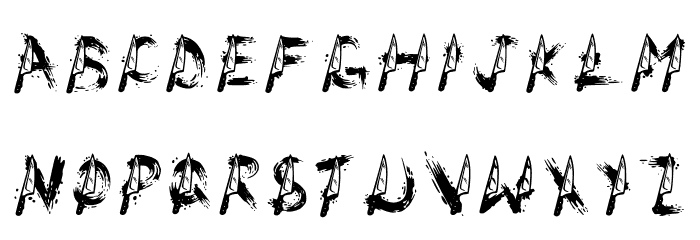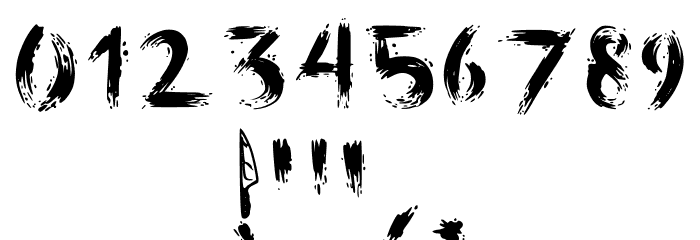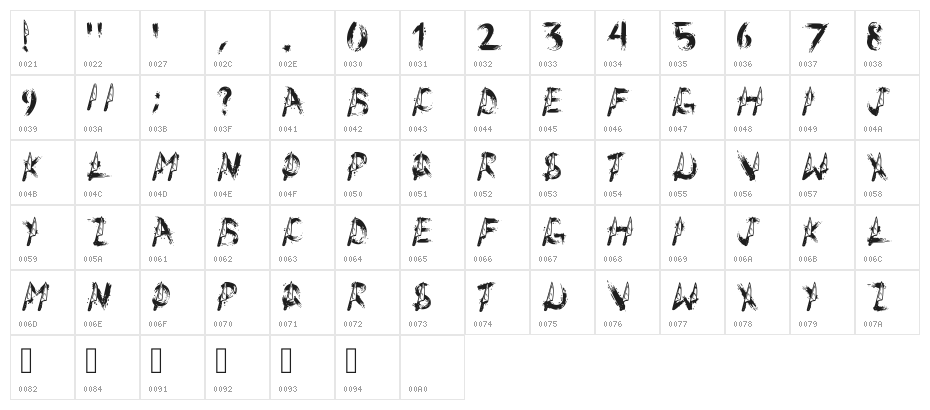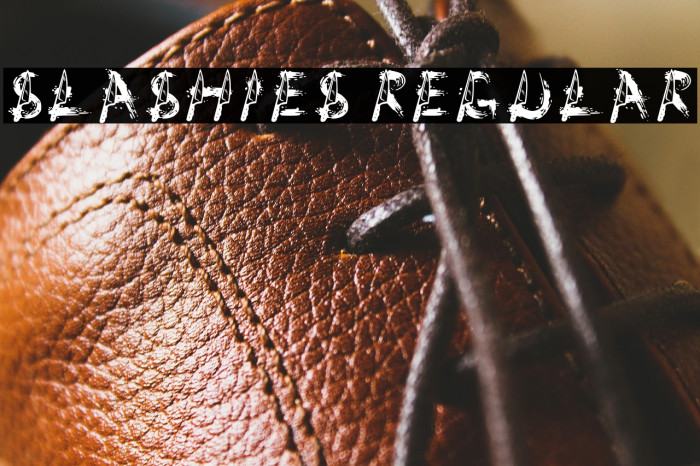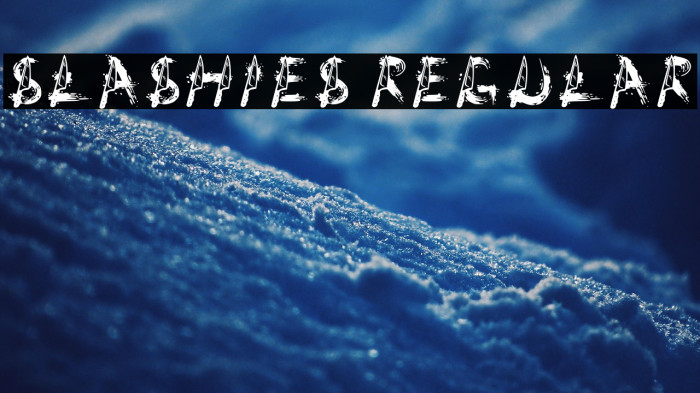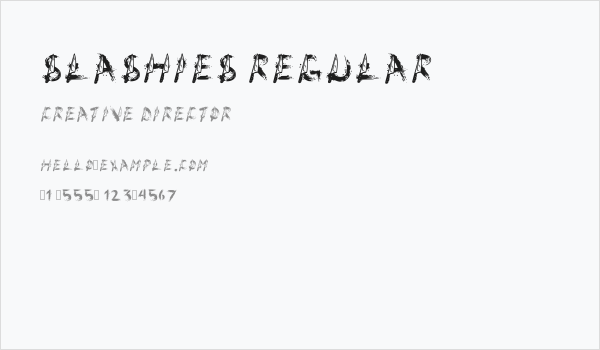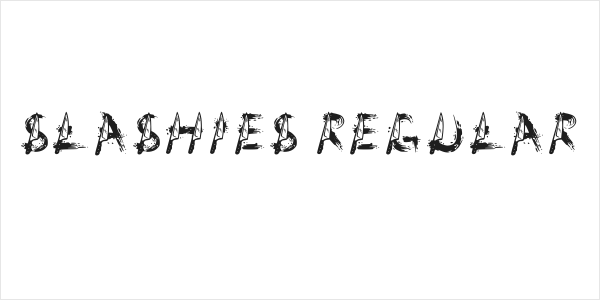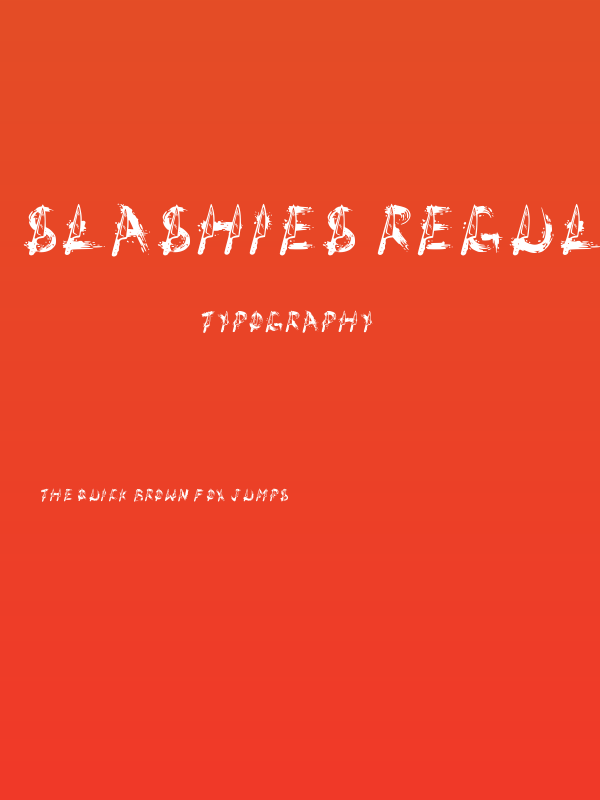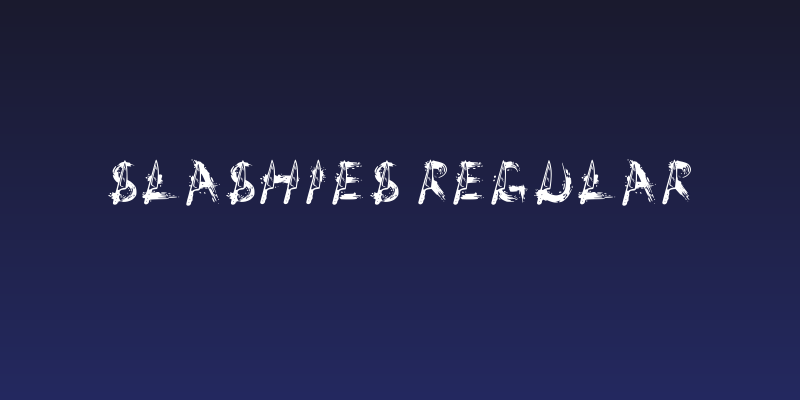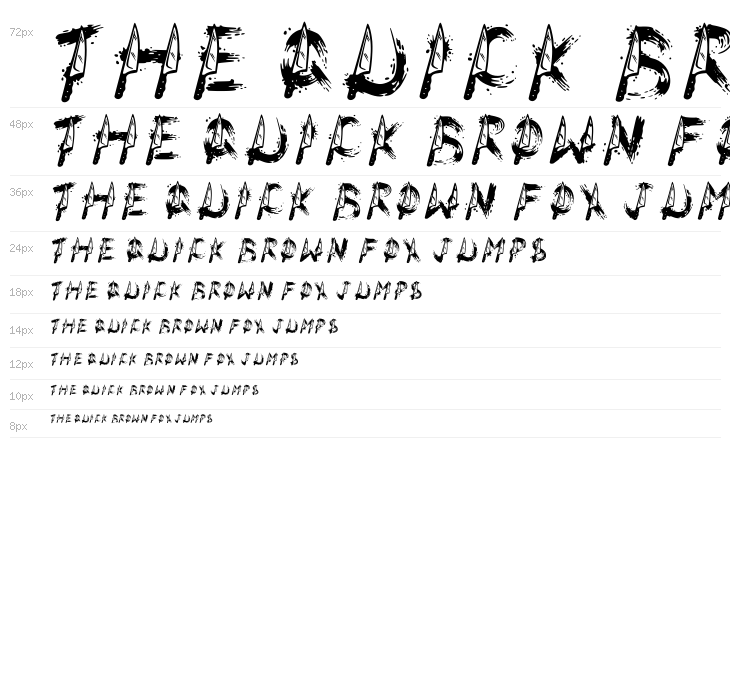
Slashies Regular Font
This font features a dynamic and edgy style, characterized by its brush-like strokes and rough, textured appearance. The letters have an irregular, hand-drawn quality, giving them a sense of movement and energy. The uppercase and lowercase letters maintain a consistent style, with jagged edges and varying stroke widths that create a bold, impactful look. The numbers and special characters follow the same aesthetic, ensuring a cohesive design throughout. This font is ideal for projects that require a strong, artistic flair, such as posters, album covers, or branding for creative industries.
A dynamic, brush-stroke font with a rough, textured appearance.
- Proposed Projects: Ideal for posters, album covers, and creative branding.
- Overall Style: Modern, Artistic